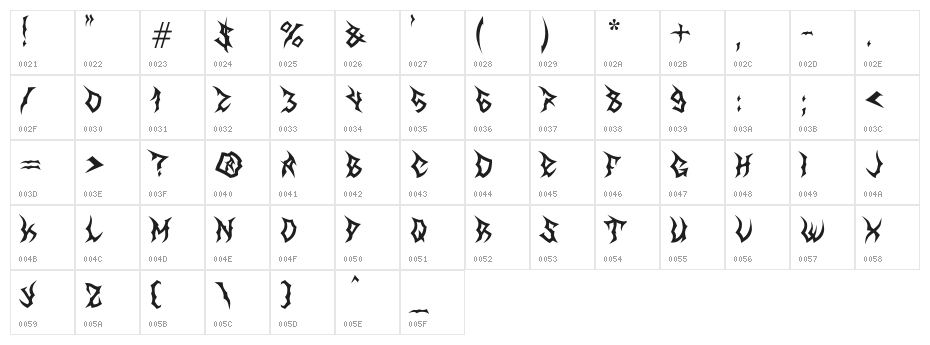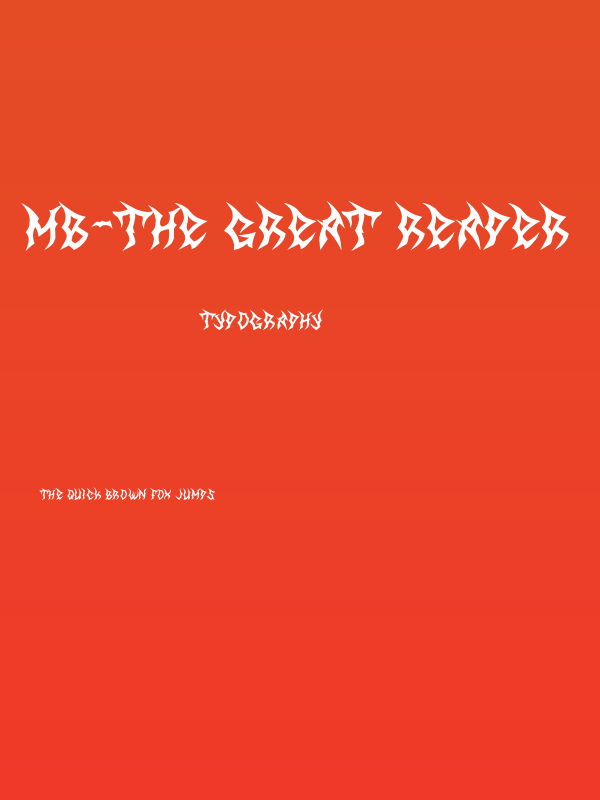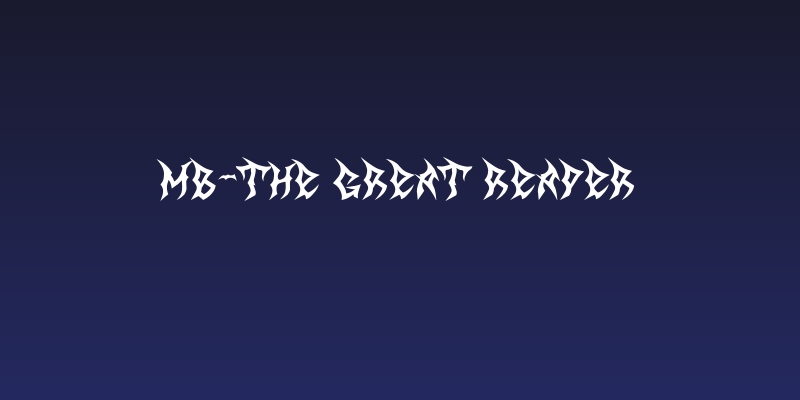
MB-The Great Reaper Font
MB-The Great Reaper Description
This font features a bold and aggressive design, characterized by sharp, angular edges and a gothic aesthetic. The letters are intricately crafted with pointed serifs and a dynamic flow that suggests movement and intensity. The uppercase and lowercase letters maintain a consistent style, with the numbers and special characters following suit. This font exudes a dark, mysterious vibe, making it ideal for projects that require a dramatic and impactful visual presence.
| Overall Style | Gothic, Dramatic |
| Use Case | Logos, Posters, Titles |
| Proposed Projects | Ideal for horror-themed posters, video game titles, heavy metal band logos, and Halloween event flyers. |